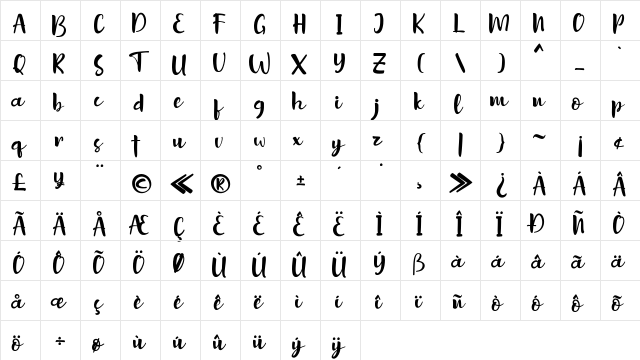
Sottel Regular
| Foundry | Dianhaniff |
| Designer | Dianhaniff |
Design Context for Sottel Typeface
Sottel is a composed and adaptable typeface that performs quietly and consistently across a wide range of design contexts.